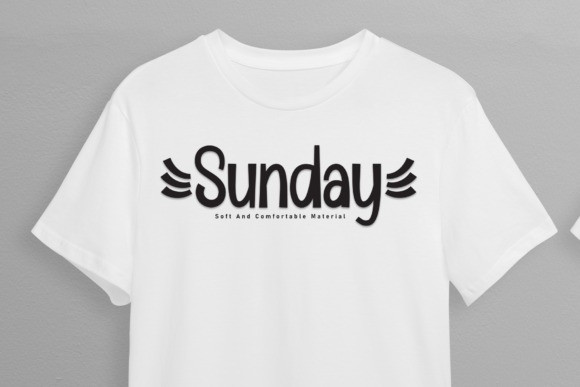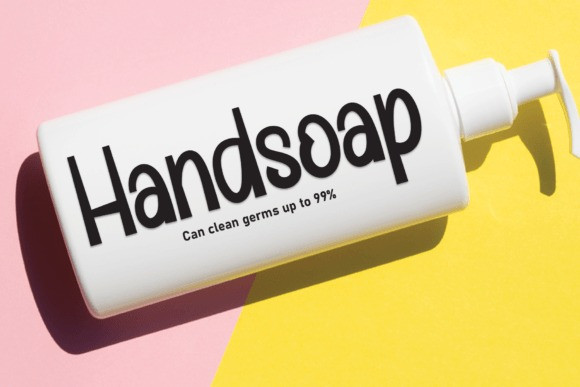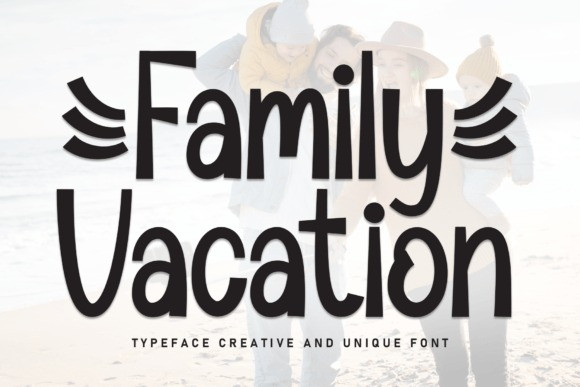
Family Vacation Display Font Designed for versatility, this recently styled alphabet font excels in various formats, from outstanding wall renditions, exquisite wedding invites to striking logos for social media posts.
Moreover, it lends an extraordinary appeal to product packaging, design, labels and advertisements. Whether you require elegant handwriting for photography watermarks, high-end stationary or impeccable invites, this font caters to all with chic sophistication.